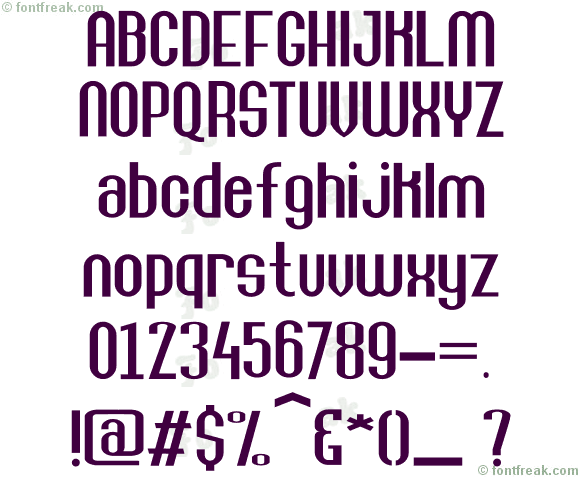
Dalgona
Dalgona, crafted by MaknaStudio in 2020, is a striking display font that captures attention with its unique visual appeal. This typeface falls into the category of decorative fonts, characterized by its bold stroke weight and clean lines. The design features a harmonious balance of geometric shapes and a modern aesthetic, making it versatile for various applications. The spacing is well-considered, allowing for easy readability while maintaining an eye-catching presence.
This font is perfect for a range of creative projects. It excels in crafting captivating wedding invitations, where its stylish flair can enhance the romantic tone. Additionally, Dalgona is ideal for movie posters, giving them a contemporary edge that draws viewers in. Restaurant menus can benefit from its unique character, providing a fresh and inviting look that complements any culinary theme. Moreover, social media graphics and promotional materials can leverage Dalgona’s distinctive style to engage audiences effectively.
Targeted towards graphic designers, small business owners, and content creators, Dalgona offers an exciting way to elevate branding and marketing efforts. Its versatility allows users to explore various creative avenues while ensuring their designs stand out.
The Dalgona font free download is an opportunity not to be missed for those looking to enhance their typographic collection. What sets Dalgona apart is its ability to merge modernity with a touch of playfulness, making it a standout choice for anyone seeking to make a memorable impression. Whether you are designing for a special event or working on a branding project, Dalgona's distinctive style will undoubtedly leave a lasting impact on your audience. Embrace the charm of Dalgona and elevate your designs to new heights.